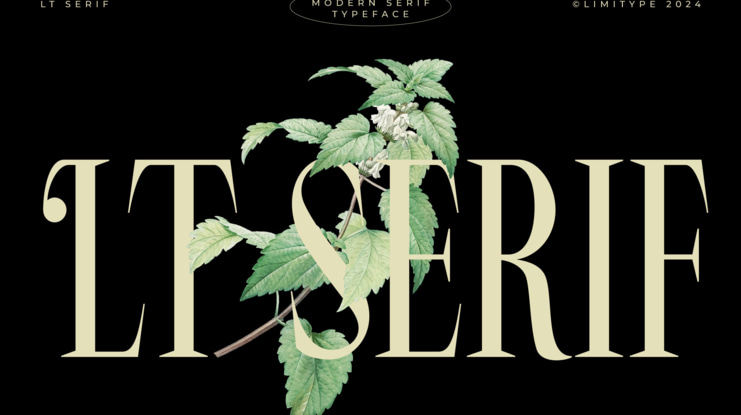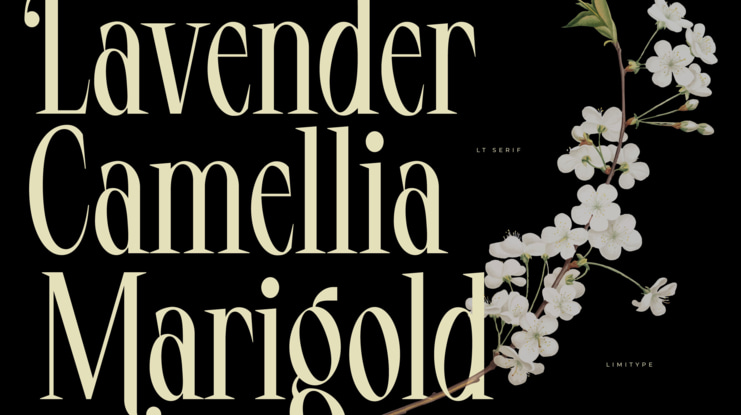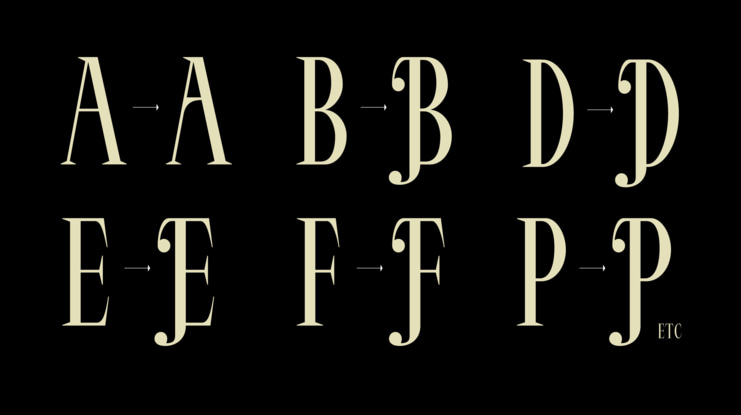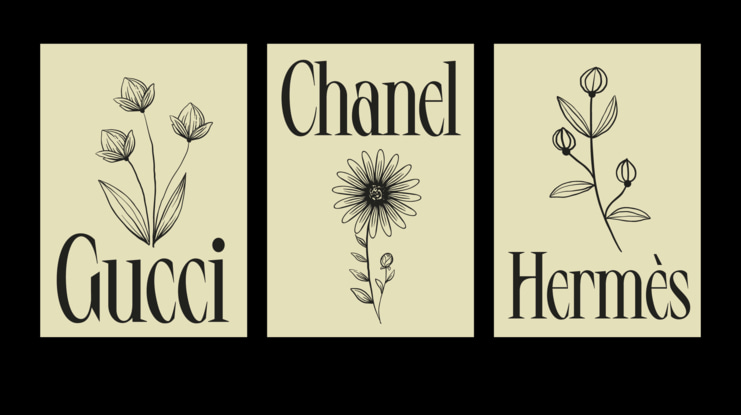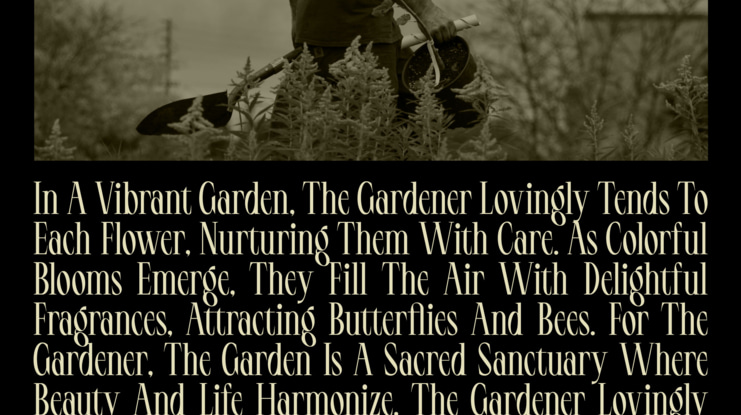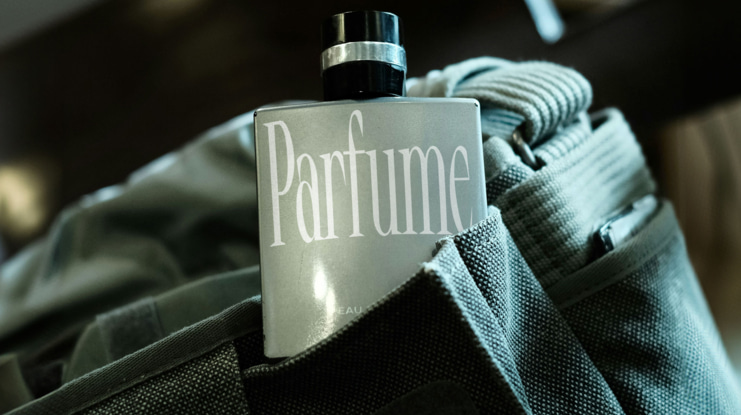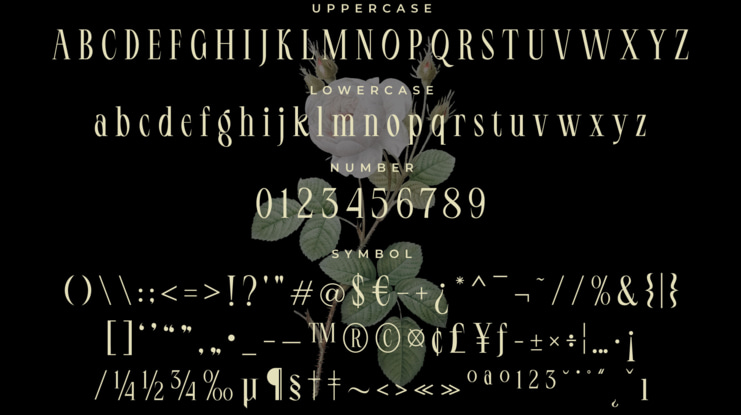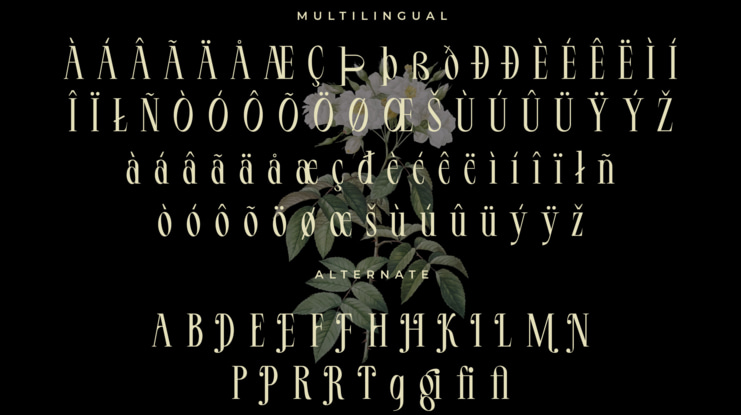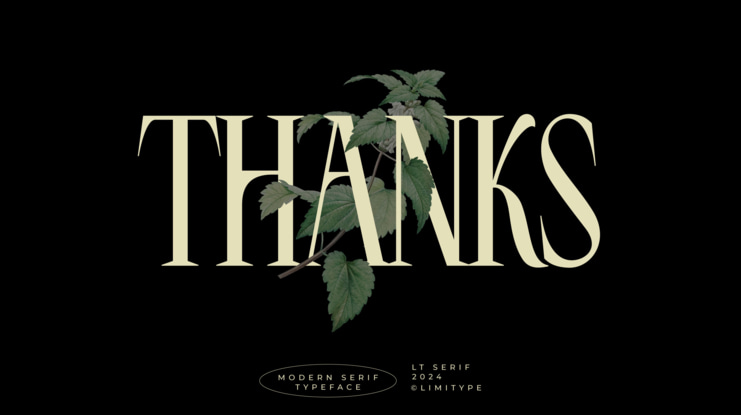
LT Serif Font
LT Serif presents a modern, minimalist, and elegantly crafted serif font, featuring distinctive alternatives for select capital letters with stems. This versatile typeface is inclusive of uppercase, lowercase, symbols, alternates, numbers, and supports multilingual characters. LT Serif lends itself perfectly to projects demanding sophistication and contemporary flair, such as magazine headlines, book layouts, banners, posters, logos, and more.